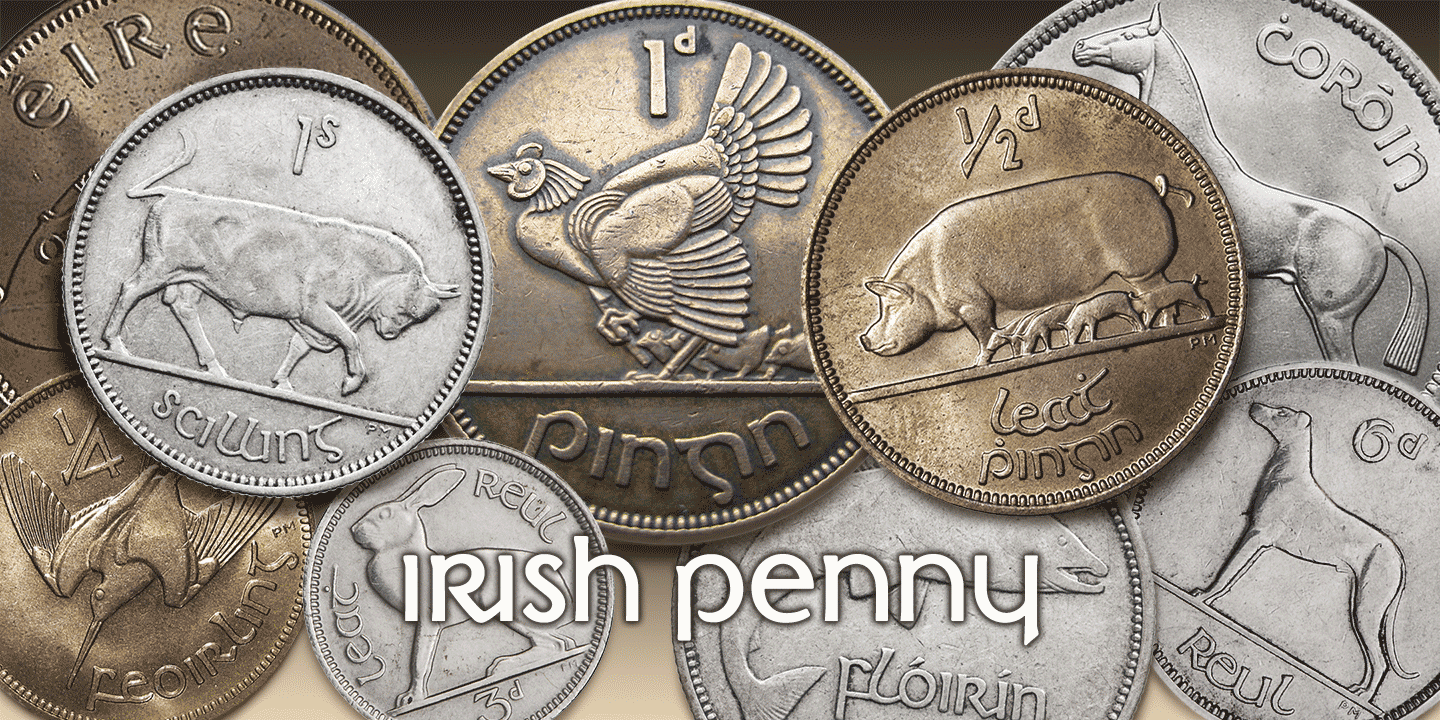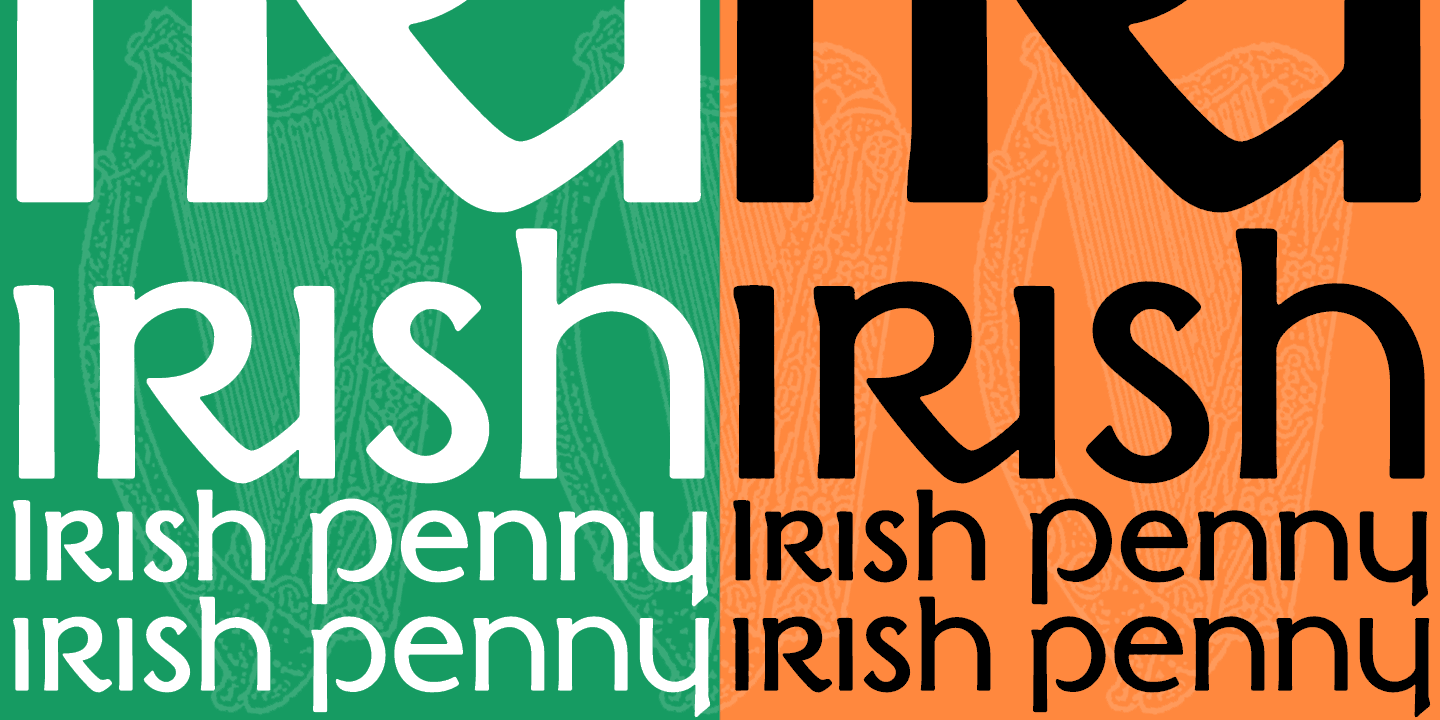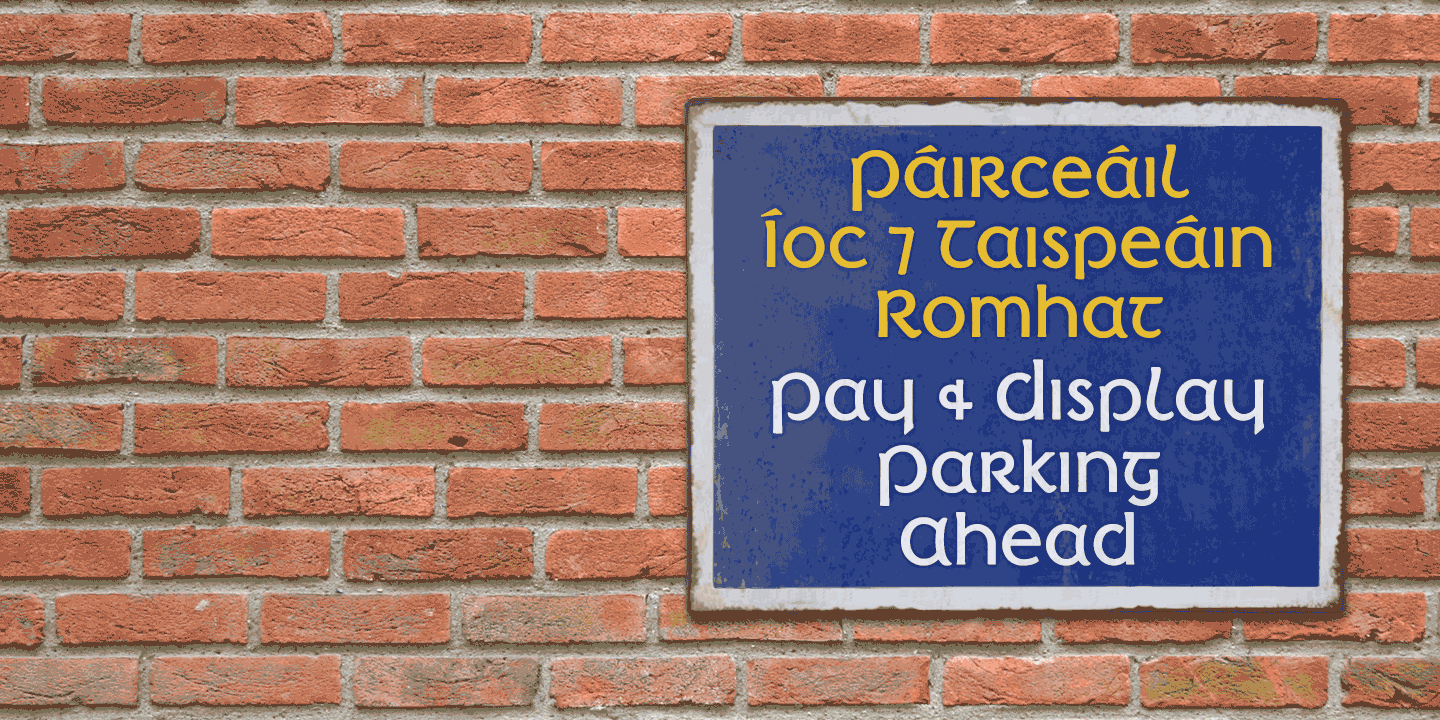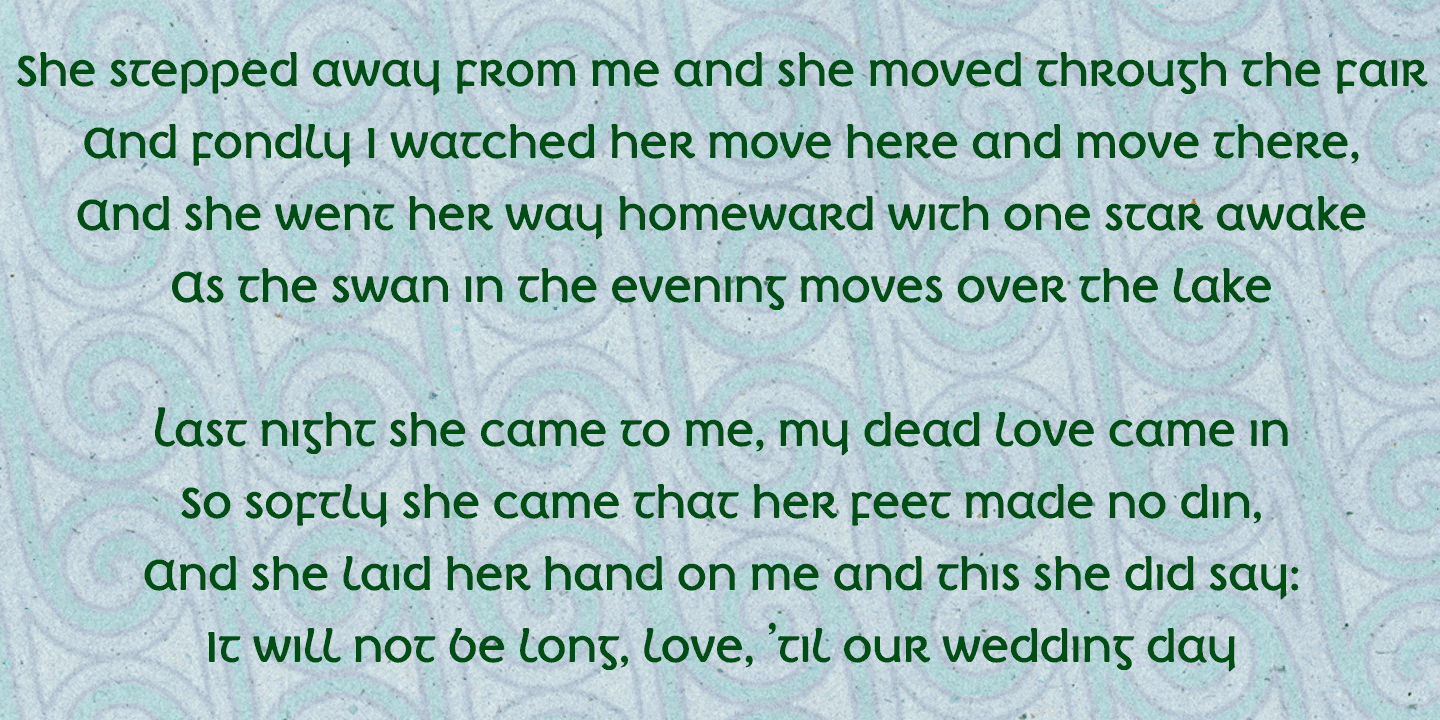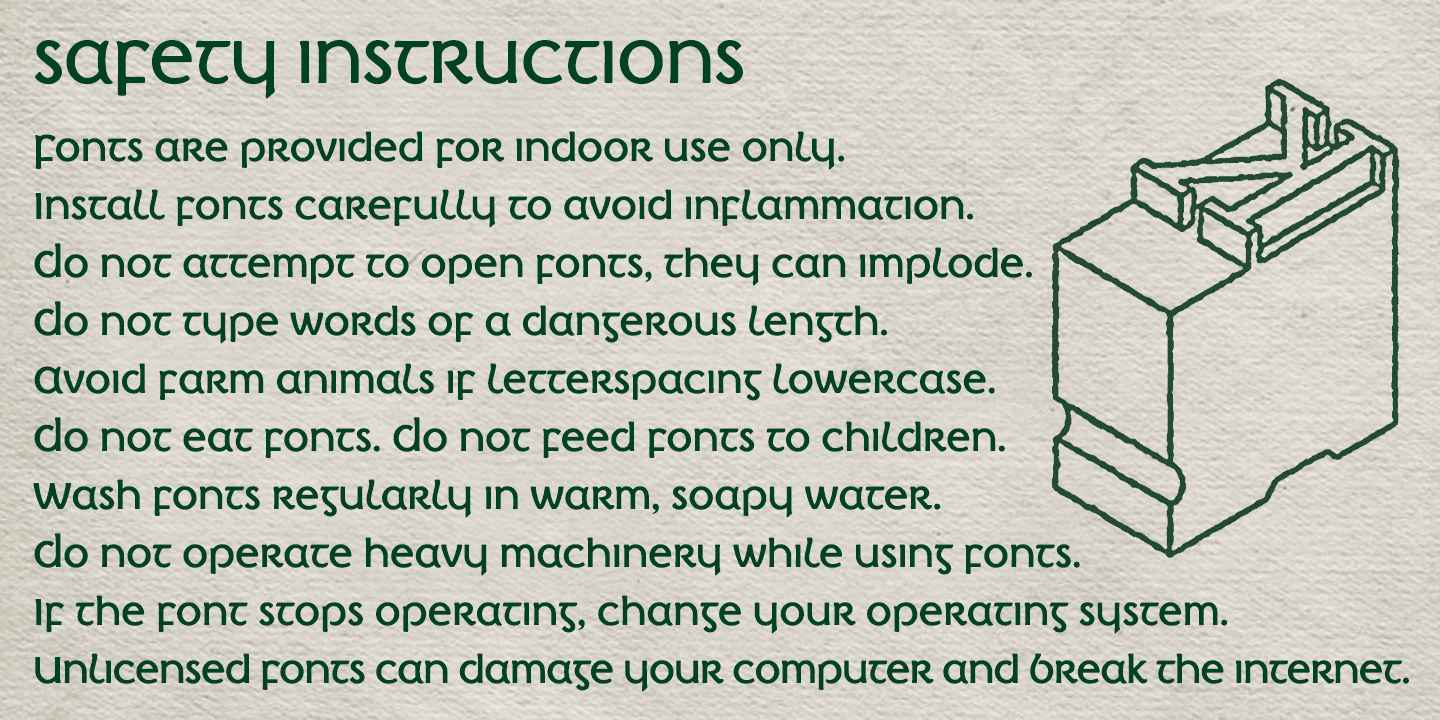
Irish Penny
Font Family by K-Type
Irish Penny is based on the lettering from Percy Metcalfe's beautiful and influential pre-decimal coinage of Ireland, the Barnyard Collection. The typeface is more monoline than is conventional for Irish insular styles, almost giving the feel of a modern soft sans, and perfect for small and large scale display purposes.
Irish Penny contains a full complement of Latin Extended-A accented characters, Irish lenited consonants with the dot accent, and the tironian et which is commonly used in Ireland instead of an ampersand. Lowercase characters are provided small caps style, slightly reduced in size and subtly thickened in weight.